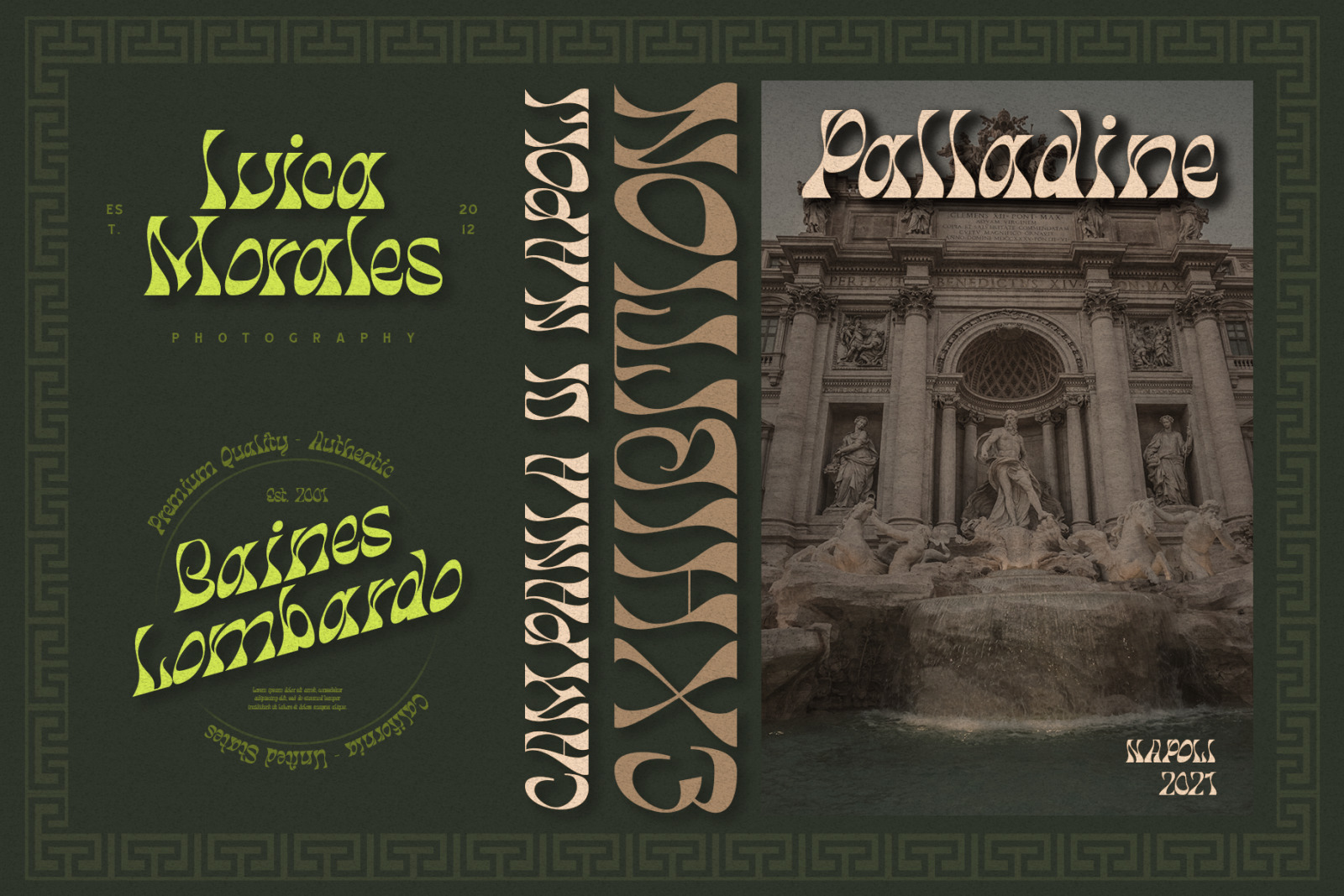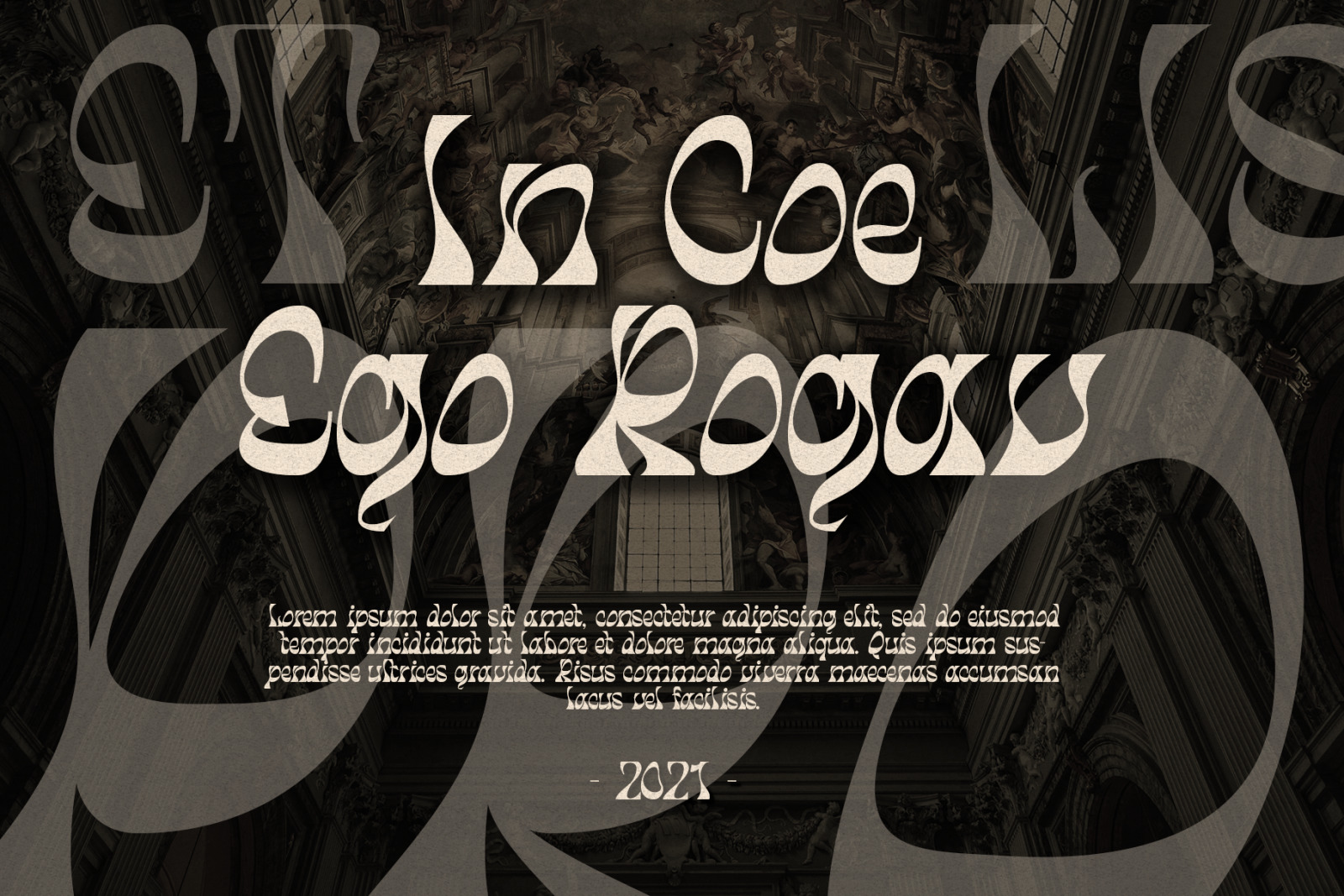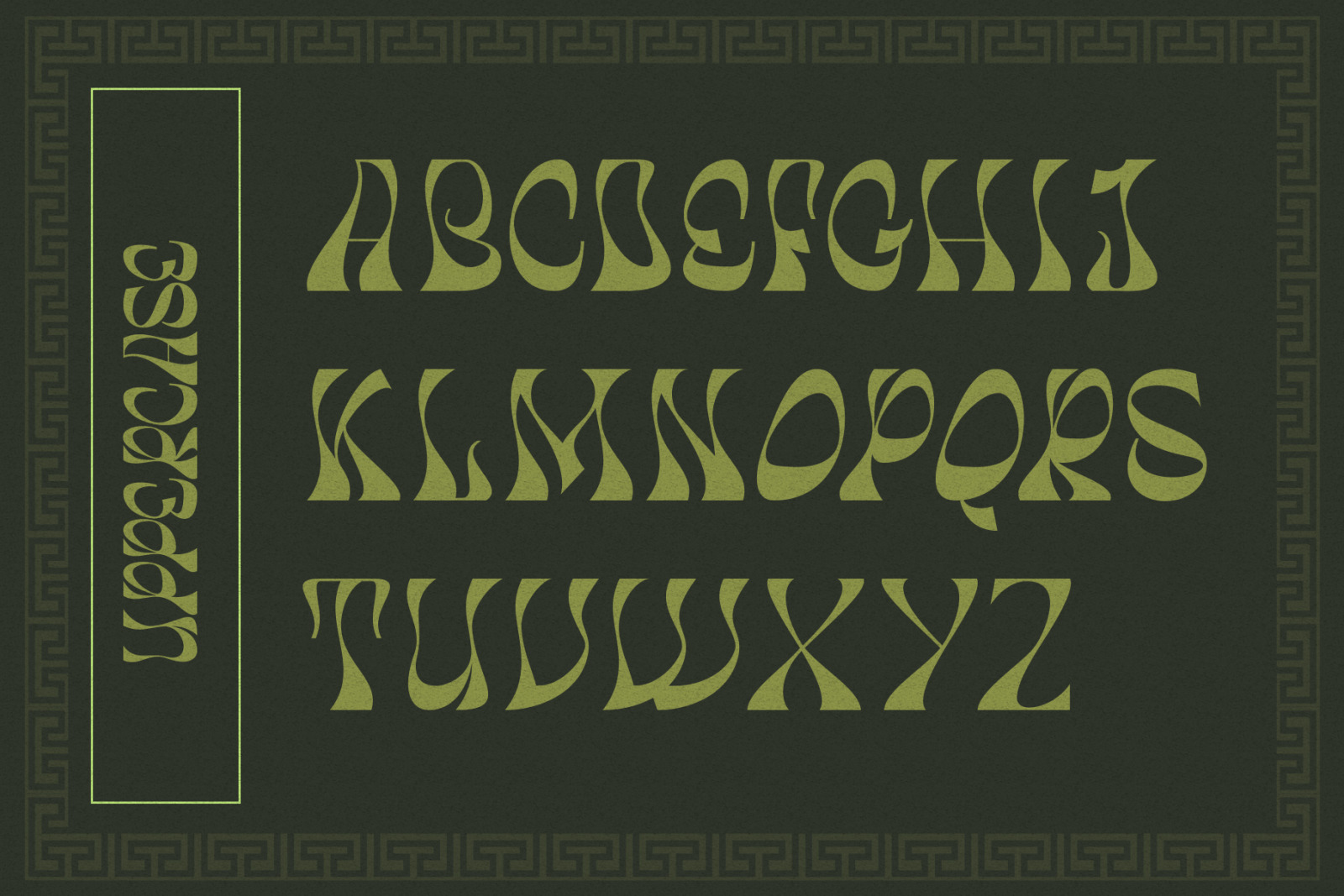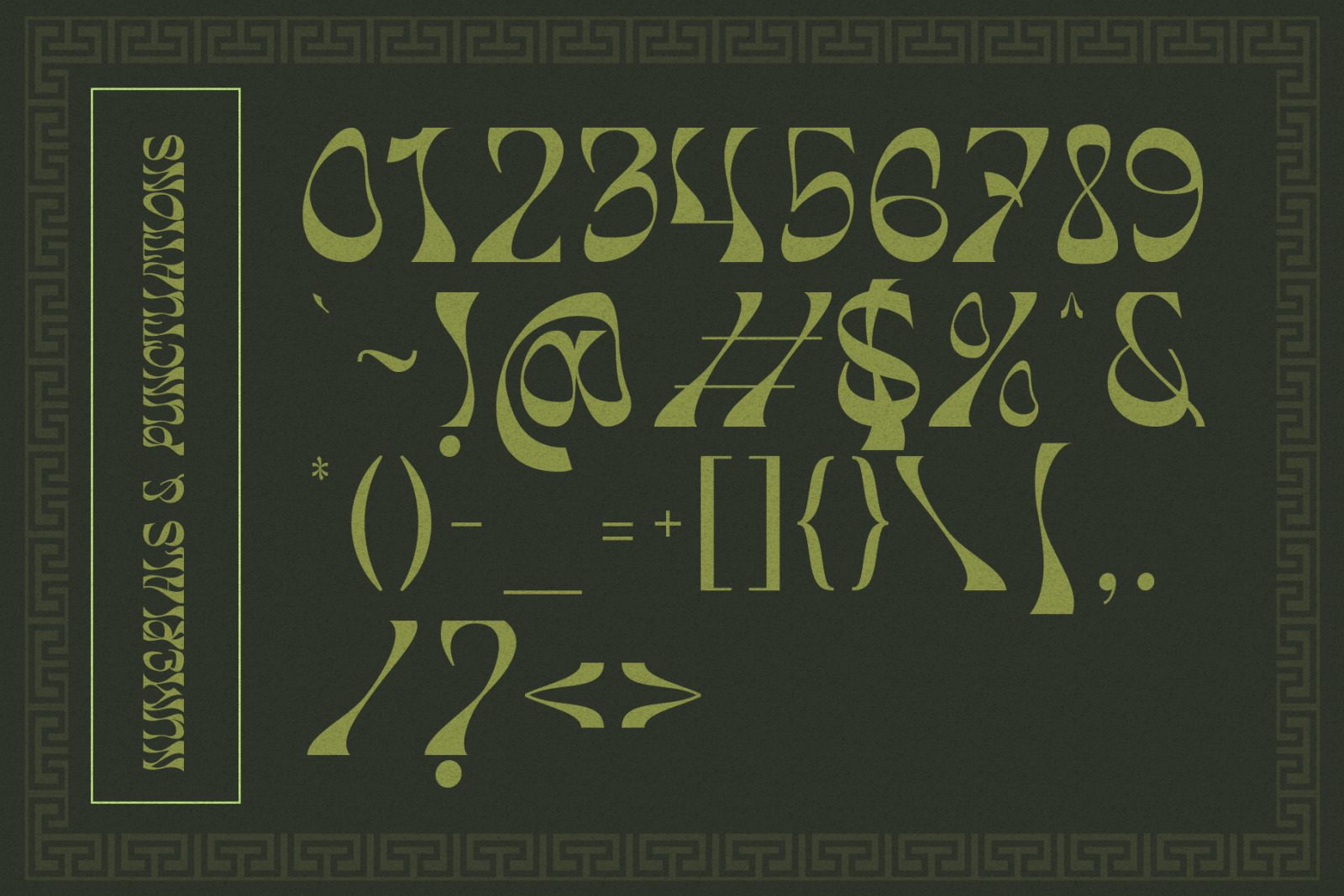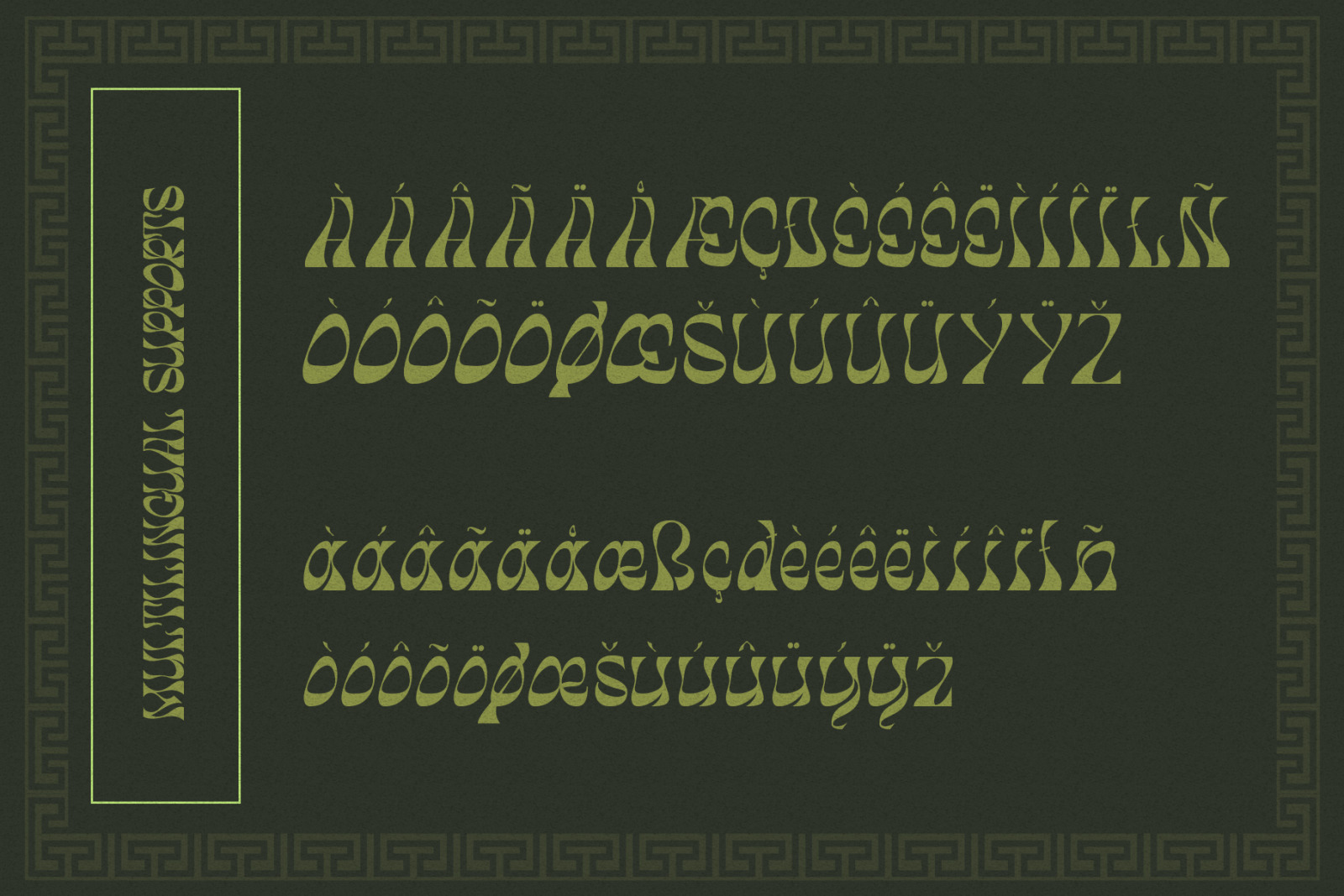
Kaifiya Font
KAIFIYA is a display font with a modern psychedelic style. A font that also has a bit of a classic feel so it's quite unique to support your modern design, you can also for corporate designs so this font is very flexible for today's designs.